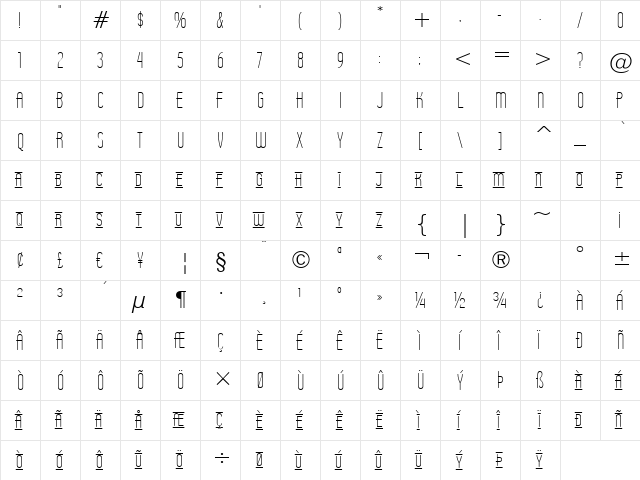
Operator Nine BTN Lined Lt Regular
Design Context for Operator Nine BTN Lined Lt Typeface
Operator Nine BTN Lined Lt is a composed and adaptable typeface that performs quietly and consistently across a wide range of design contexts. The delicate stroke weight brings airiness and refinement to layouts.